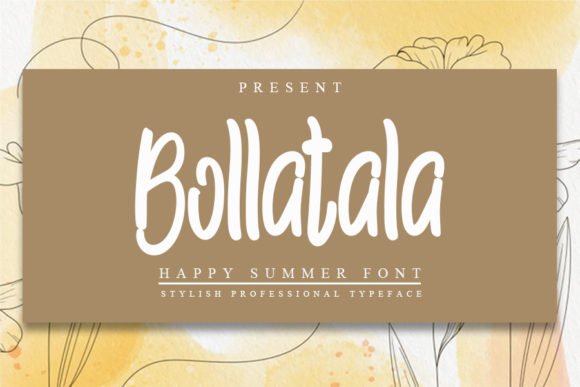
Discover the Magic of Handwritten Charm with Bollatala Font
Have you ever been brainstorming ideas for a new design project, and suddenly, the perfect font pops into your mind? For designers, those “aha” moments are the best. They spark creativity and set the tone for an entire project. For me, that moment came when I stumbled upon the Bollatala Font – a sweet and friendly handwritten font that instantly captured my imagination.
Bollatala Font is more than just a font; it’s a gateway to endless design possibilities. Its natural and unique style makes it incredibly fitting to a large pool of designs, from invitations and greeting cards to digital art and branding materials. Whether you’re a seasoned designer or just starting out, the Bollatala Font is a valuable addition to your toolkit, waiting to inspire your next creative project.
Bollatala Font Key Features
- Font Family: Bollatala Font offers a range of font styles, including Regular, Bold, Italic, and Bold Italic.
- Character Set: Supports a wide range of languages, including Latin, Cyrillic, and Greek alphabets, making it a versatile choice for multilingual projects.
- Unique Characteristics: Bollatala Font features a unique blend of traditional and modern design elements, resulting in a distinctive and eye-catching typographic style.
Bollatala Font Review
I recently had the chance to work with the Bollatala Font, and I must say it’s an interesting choice for designers looking for a unique aesthetic.
- Uniqueness: The Bollatala Font truly stands out from the crowd, offering a distinctive style that’s perfect for projects that need to make a statement.
- Legibility: Despite its bold and unconventional design, the font is surprisingly legible, making it suitable for a wide range of applications.
- Customization: The font offers a good range of weights and styles, allowing designers to fine-tune their designs to suit their needs.
- Readability in small sizes: While the font is legible overall, it can become difficult to read in smaller sizes, particularly for body text.
- Lack of support for non-English languages: The font’s unique design may not be compatible with non-English languages, which could be a limitation for global projects.
Overall, the Bollatala Font is a great choice for designers who want to add a touch of personality to their projects. However, it may not be the best fit for projects that require high levels of legibility or support for multiple languages.
The Bollatala Font is commonly used for:
- Event branding and marketing materials.
- Personalized gifts and stationery.
Alternatives to Bollatala Font for Designers
Bollatala Font is a sans-serif font known for its modern and clean design. However, there are other alternatives that offer similar characteristics with unique features. Here are a few options for designers:
1. Inter
Inter is a geometric sans-serif font designed by Rasmus Andersson. It’s a highly legible and versatile font suitable for digital products, such as websites, apps, and software. Inter is a good alternative to Bollatala Font for designers who want a clean and modern look with excellent readability.
Comparison: Inter has a more geometric feel compared to Bollatala Font, which has a more rounded appearance. Inter is also more suitable for digital products, while Bollatala Font is often used for print materials.
Montserrat is a sans-serif font designed by Julieta Ulanovsky. It’s a highly versatile font that works well for both digital and print materials. Montserrat is a good alternative to Bollatala Font for designers who want a font with a strong urban feel.